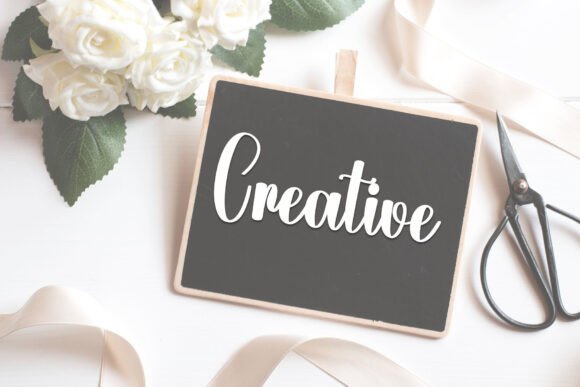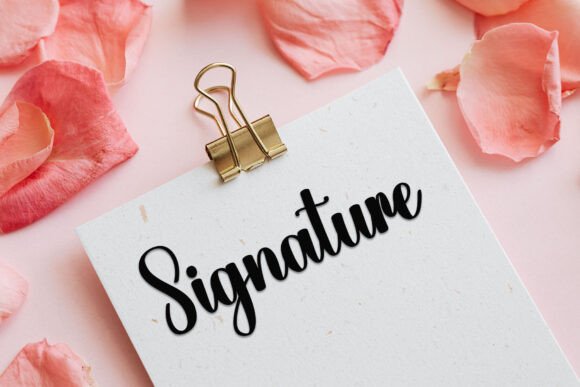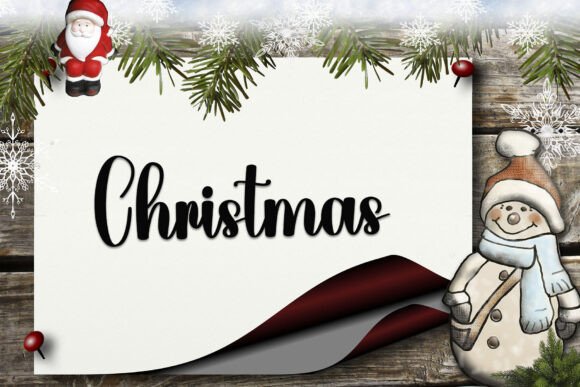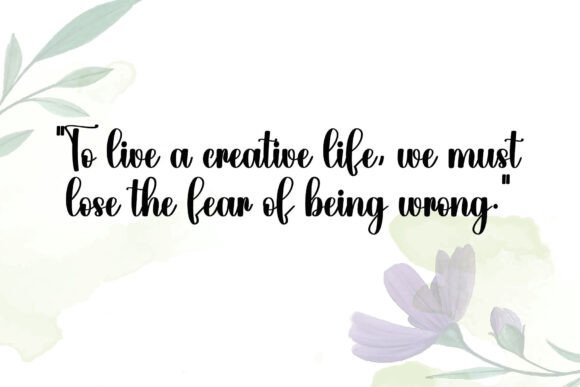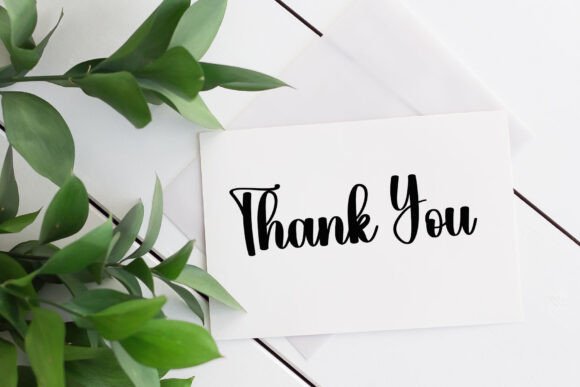
The Ultimate Guide to Birthday Party Font: Elevate Your Designs with Elegance
I’ll never forget the time I was working on a birthday party invitation design for a client’s milestone celebration. I had all the elements in place – the perfect graphics, a stunning color scheme, and an exciting layout. However, something was missing. The font I was using just didn’t have that special spark to make it truly unforgettable. That’s when I stumbled upon the Birthday Party font. It was love at first sight! With its trendy, handwritten style and impeccable form, it instantly added a touch of elegance and class to my design.
An Honest Review of Birthday Party Font
- ✨ Timeless Classic Calligraphy Inspiration: The font’s inspiration from timeless classic calligraphy gives it a sophisticated and refined feel that’s perfect for special occasions.
- ✅ Contemporary Atmosphere: Despite being inspired by classic calligraphy, the font has a contemporary atmosphere that makes it versatile and suitable for various design projects.
- 💫 Elegant and Classy: The font’s elegant and classy feel makes it perfect for designs that require a touch of sophistication, such as wedding invitations, luxury branding, and high-end product packaging.
While the Birthday Party font is exceptional, there are a few minor quirks to be aware of:
The Designer Inspiration Behind Birthday Party Font
The Birthday Party font was designed with the intention of creating a trendy, handwritten font that captures the essence of timeless classic calligraphy. The designer aimed to create a font that would add elegance and class to any design project, while still being versatile and easy to use.
Q: What is the Birthday Party font inspired by?
A: The Birthday Party font is inspired by timeless classic calligraphy.